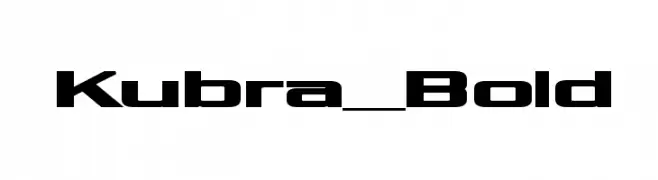
A playful, hand-drawn font with a cartoon-like, italicized style.
A playful, hand-drawn font with rounded, whimsical characters.
A bold, 3D carved font with a playful, textured design.
A bold, expressive handwritten font with dynamic strokes.
An ornate and decorative font with bold, swirling serifs and intricate detailing.
A bold, decorative serif font with intricate line shading and a classic, authoritative style.
A distressed, grunge-style font with a rugged, stencil-like appearance.
An elegant calligraphic font with ornate swashes and flourishes.
A classic, calligraphic font with decorative serifs and elegant swashes.
An ornate and elegant font with classic calligraphic flourishes.
An elegant and ornate font with flowing, decorative characters.
A modern, clean sans-serif font with balanced proportions and clear readability.
A bold, modern sans-serif font with clean lines and uniform strokes.
A modern, bold, and italicized typeface with consistent stroke thickness.
A sleek, modern italic font with smooth curves and clear readability.
A bold, cursive font with smooth, flowing lines and a modern yet classic feel.
An elegant, decorative font with intricate swirls and curls.
An elegant, decorative font with intricate swirls and flourishes.
A bold, geometric font with a modern and robust style.
A bold, geometric serif font with a modern vintage aesthetic.
A bold, geometric font with strong, angular lines and a modern architectural feel.
A playful, hand-drawn font with bold, rounded characters.
A playful, handwritten font with a casual and informal style.
A bold, handwritten font with a casual and expressive style.
A bold, pixelated font with a retro video game aesthetic.
A bold, blocky geometric font with a modern, digital aesthetic.
A bold, pixelated font with a retro video game style.
A playful, handwritten-style font with bold strokes and dynamic slant.